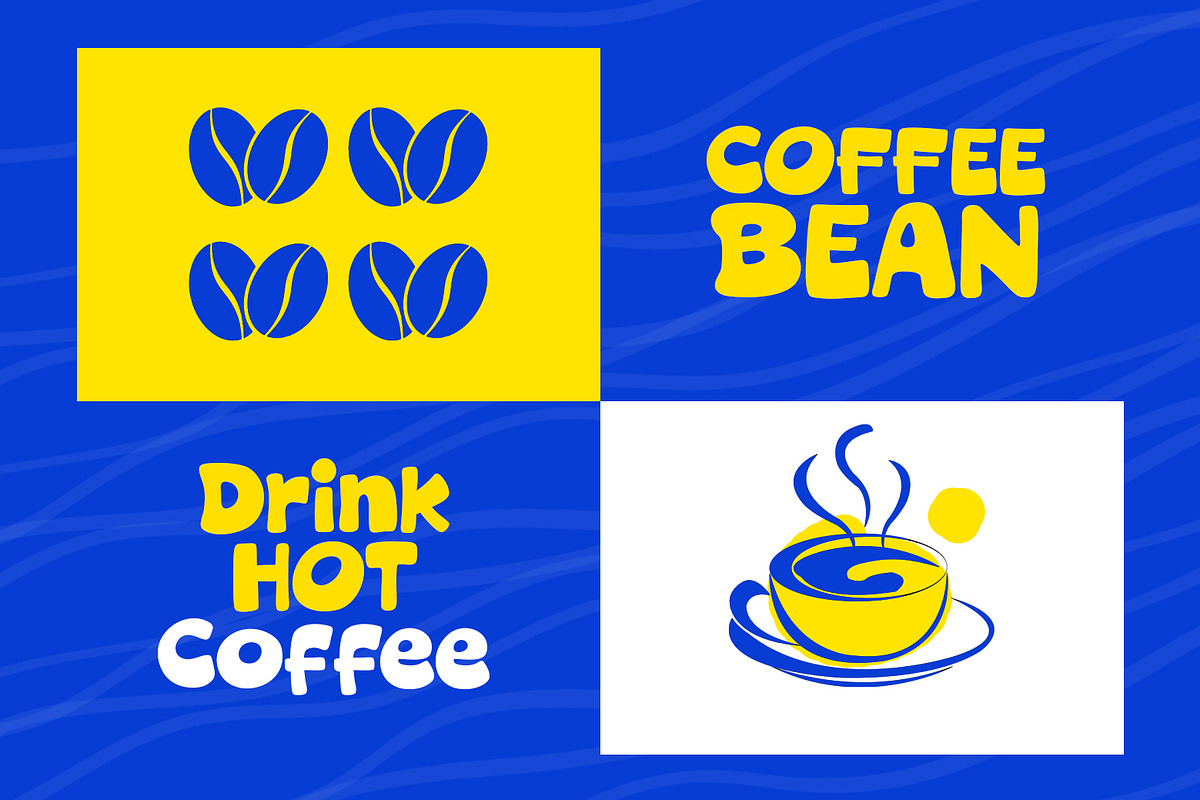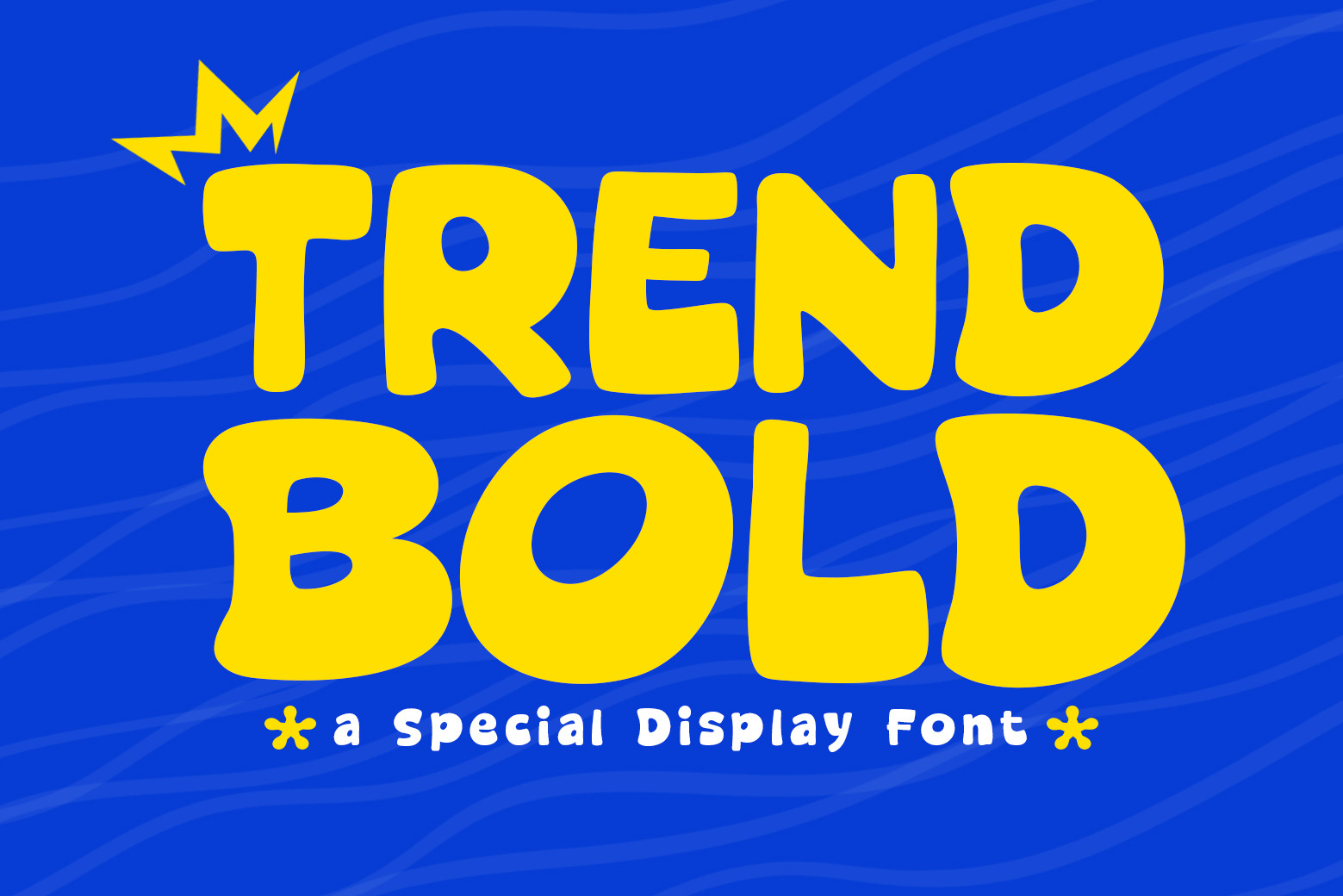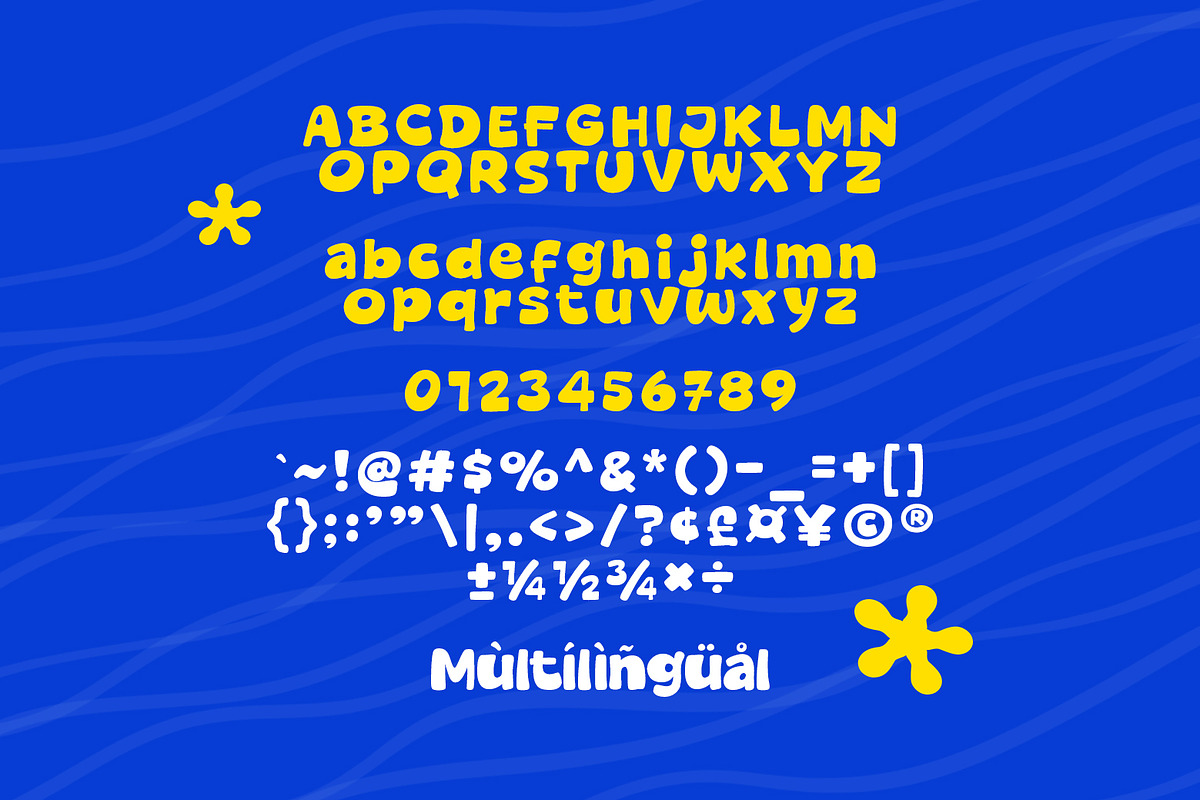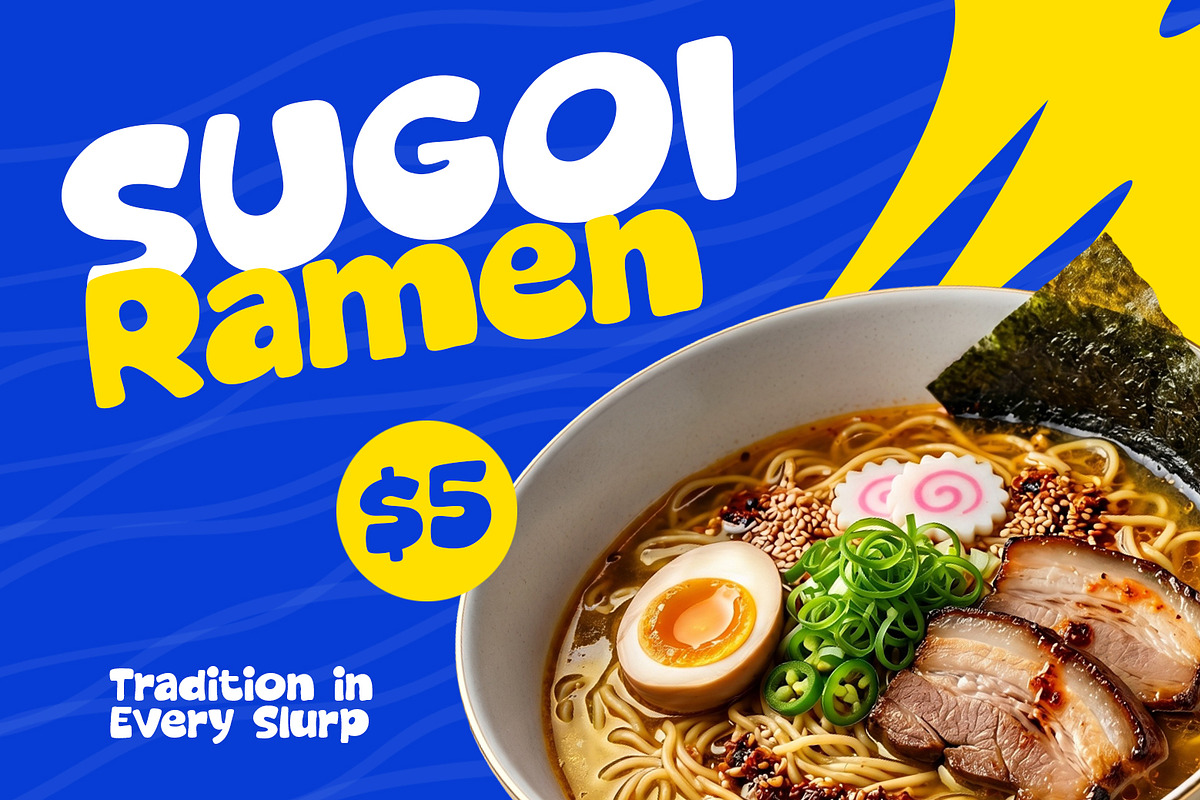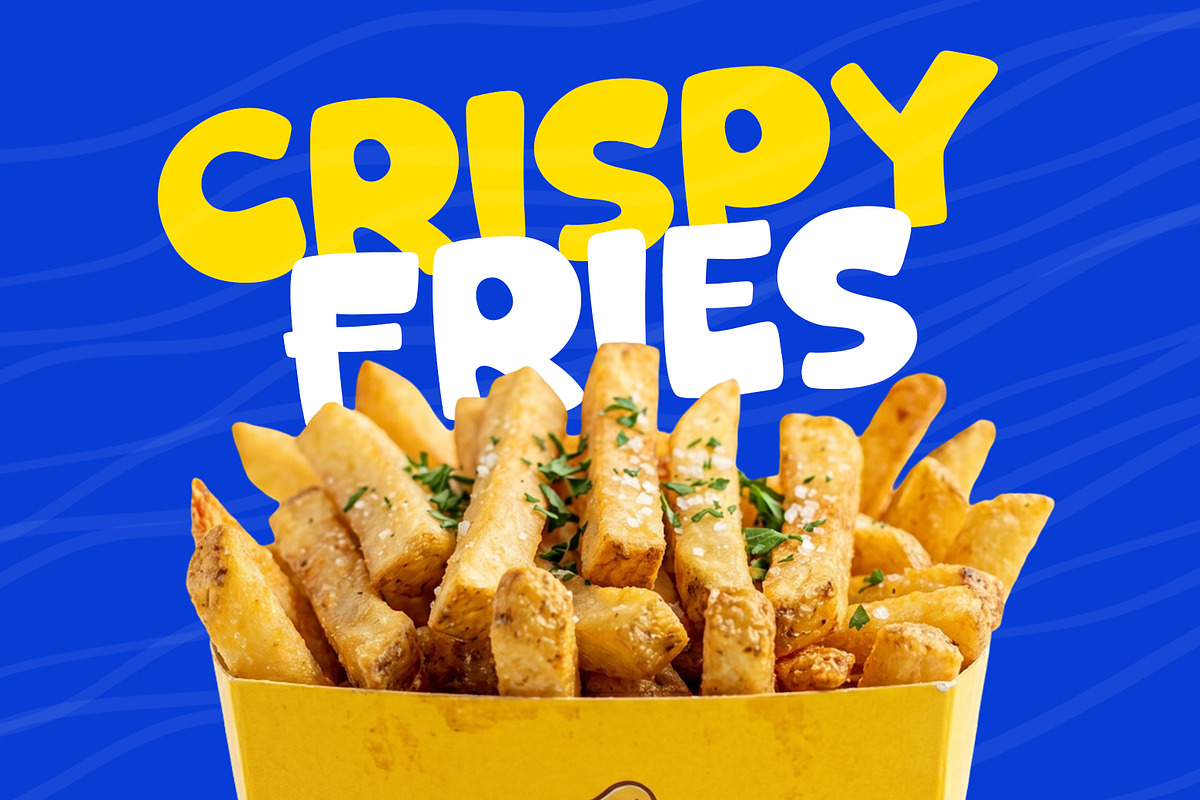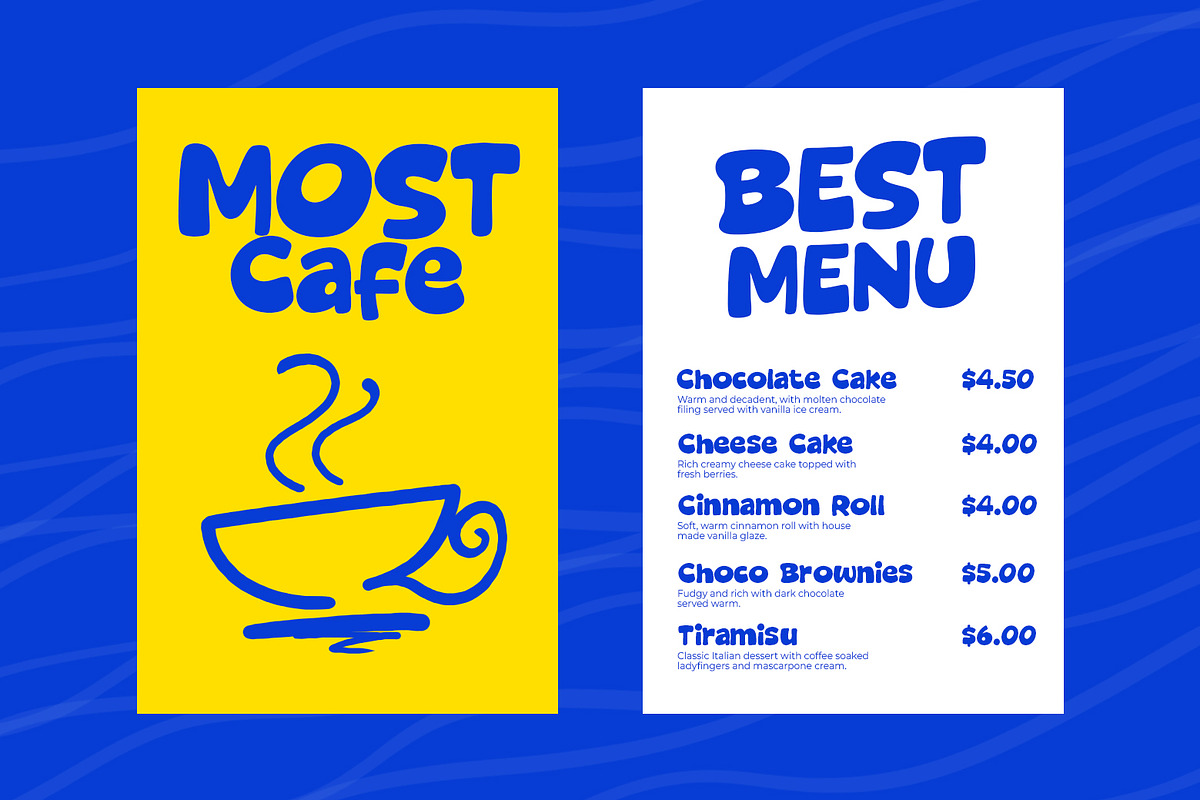
Trend Bold - Cozy & Display Font
Introducing, Trend Bold font a fun display typeface with cheerful theme for your fun project. Trend Bold font suitable for logo, branding, greeting card, poster and any design that you create.